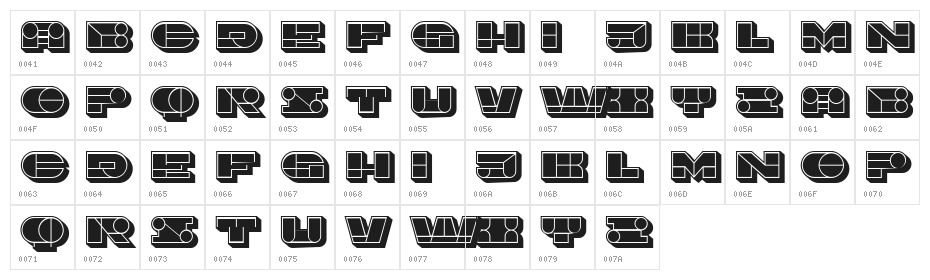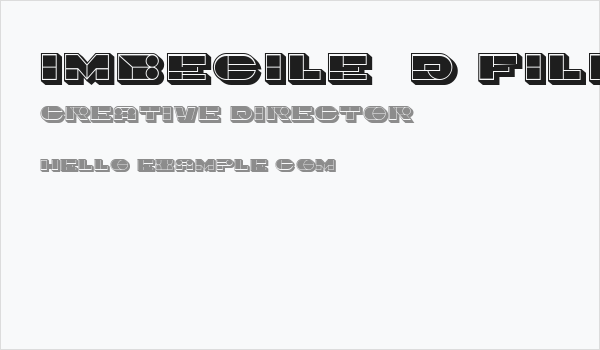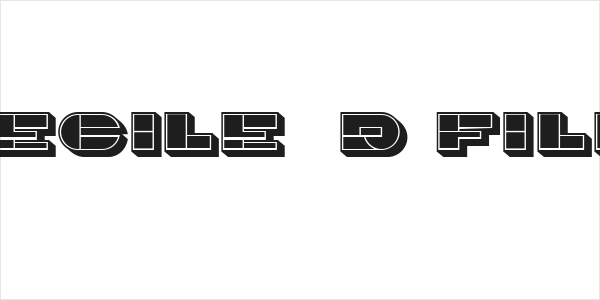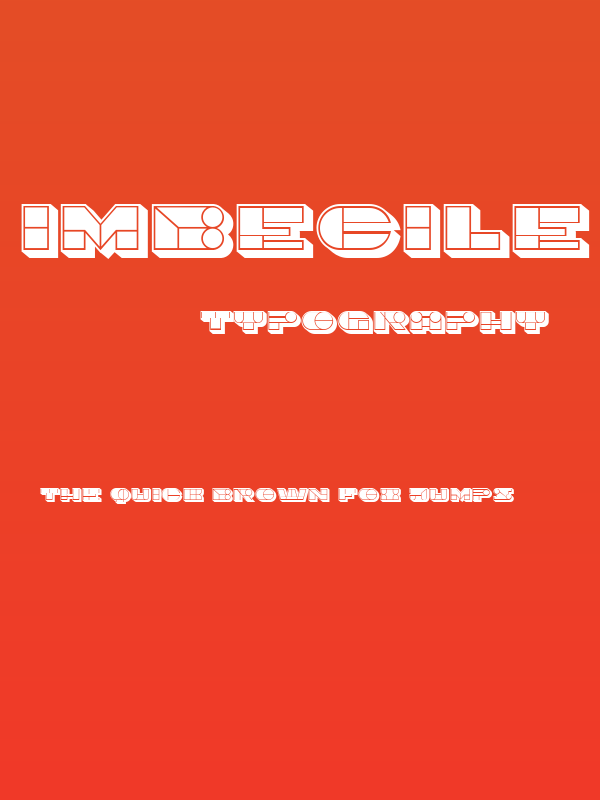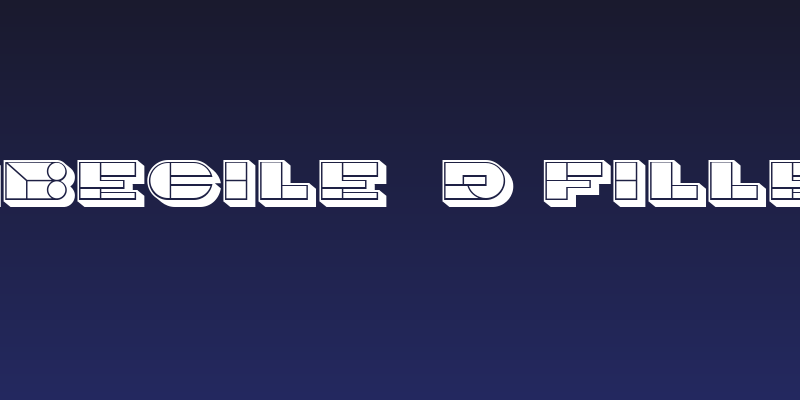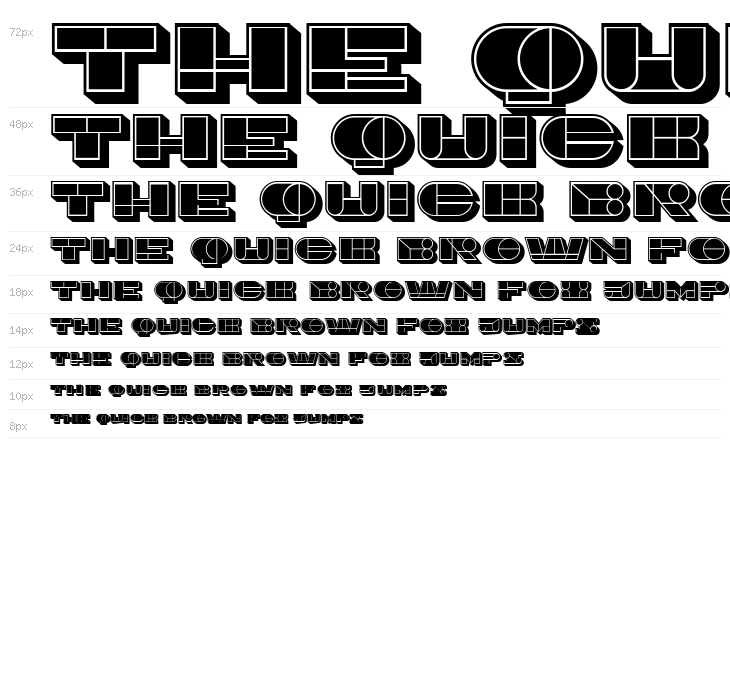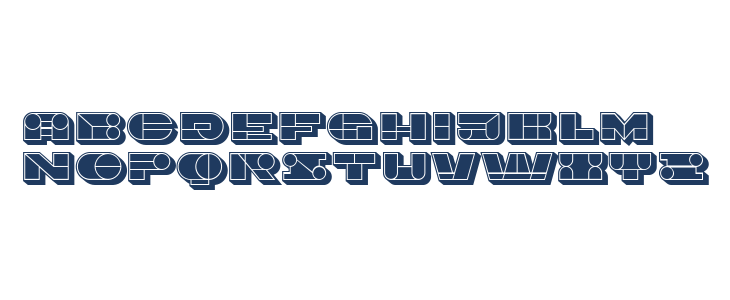
Imbecile 3D Filled Font
Imbecile 3D Filled Description
This font features a bold, three-dimensional design with filled interiors, creating a striking visual impact. The characters are constructed with geometric precision, incorporating straight lines and sharp angles that contribute to its modern and futuristic appearance. The 3D effect is achieved through the use of shading and layering, giving the letters a sense of depth and solidity. This font's unique style makes it ideal for projects that require a strong, attention-grabbing typeface. The uppercase letters are particularly prominent, with each character maintaining a consistent height and width, ensuring uniformity across the text. The font's boldness and filled design make it unsuitable for body text but perfect for headlines, posters, and other display purposes.
Proposed ProjectsPerfect for use in posters, headlines, branding, and any project requiring a bold, futuristic look.